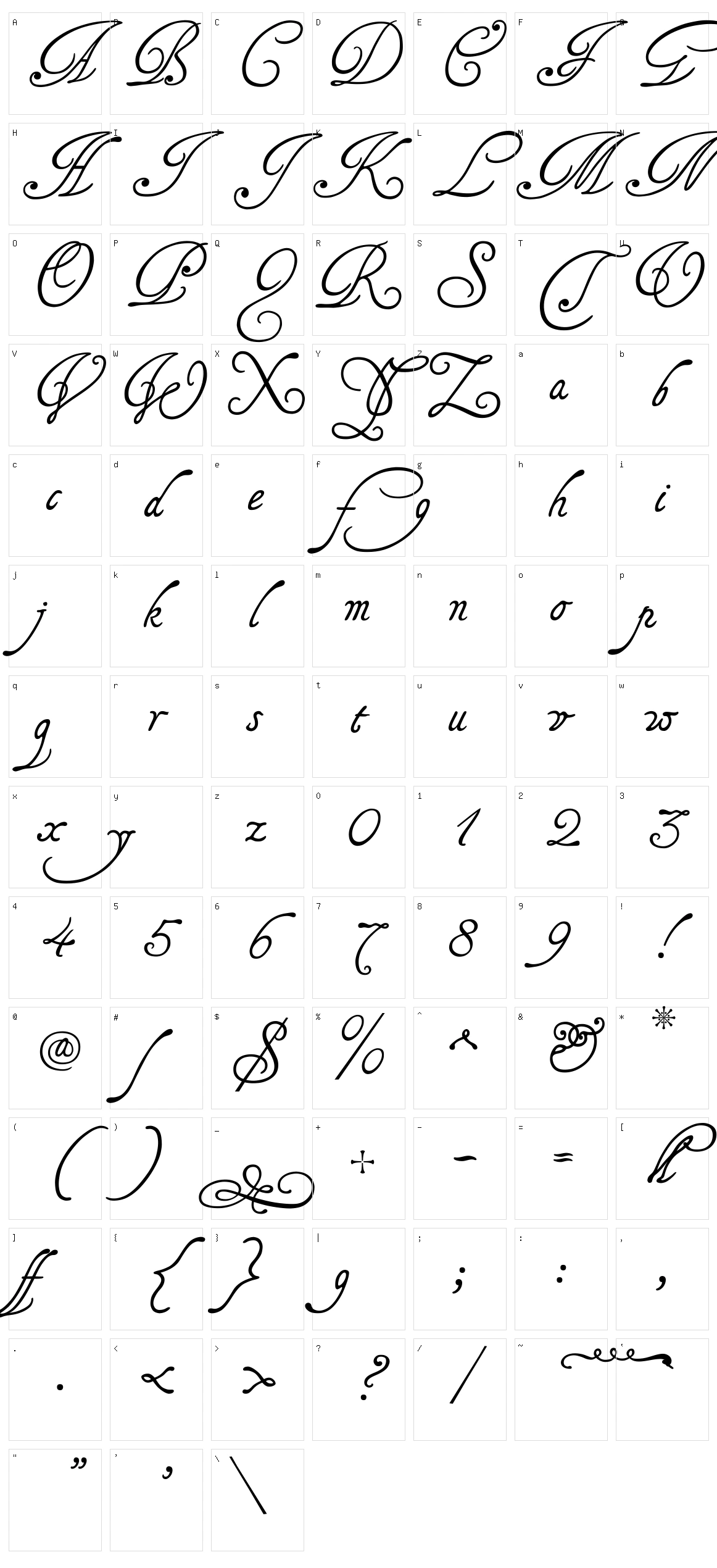
The Tagettes fonts are the type of Italian chancery writing of the 16th and 17th century that is mostly called Cancellaresca, and were developped out of a page of samples created by the French writing master Louis Barbedor around 1650.
Both fonts are matching -- on my computer at least --, and you should therefore have no difficulties in getting your texts to look more swashed by selecting some letters and having them displayed as the alternate glyphs.
As usual, there is no number sign in these fonts, and you'll find a long s in its place.
Despite the alternate font, there are still extras in the Tagettes main font, e.g.
- a double l on the left bracket
- a double f on the right bracket
- a less swashed simple g on the bar sign
- an alternate r on the masculine ordinator, the 'less than or equal to', and the the 'fi' sign
- an alternate s on the feminine ordinator, the 'greater than or equal to', and the the 'fl' sign
- a swash on the underscore
- a swash on the ASCII tilde
- and yet another swash on the broken bar sign
TagettesPlus
contains neither figures nor punctuation marks, nor composite charcters, and its set of upper case glyphs is identical with that of the main font. Its lower case letters are the alternate ones. They are mostly swashed, but you'll find a simple f and g there, too, as well as two less space-taking ys.
UPDATE 2007
has somwhat altered the TagettesPlus font, adding a swash to the c, s and v, changing the e and t, and redistributing some of the keys. Here's the actual list:
- a swashed long s on the number sign
- a new ending swash for middle zone characters on the period sign
- a swash on the hyphen
- another swash on the underscore
- the font's former e, s, and t on the numbers 1 to 3
- a second simple y on the number 4
- and an alternate German sharp s on the sharp s sign.
- As to the dragon, you'll find it now, not only on the @ sign, but on the µ (micro sign), too.
For the Tagettes main font, there has been a more thorough UPDATE in 2010, redesigning a lot of the composite glyphs, and eliminating some glitches which affected their boundaries (for example the yacute).